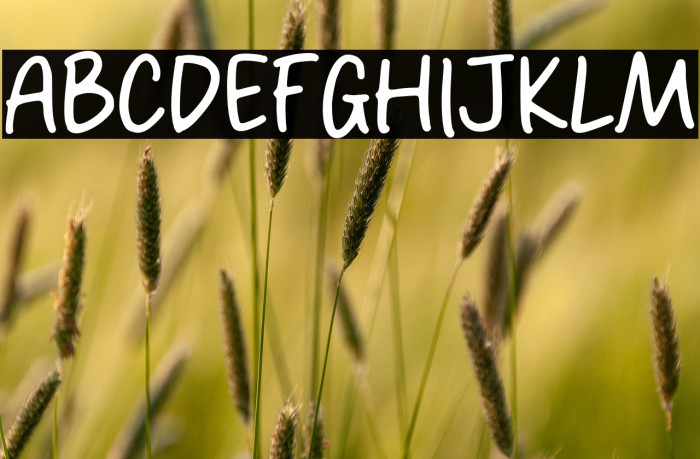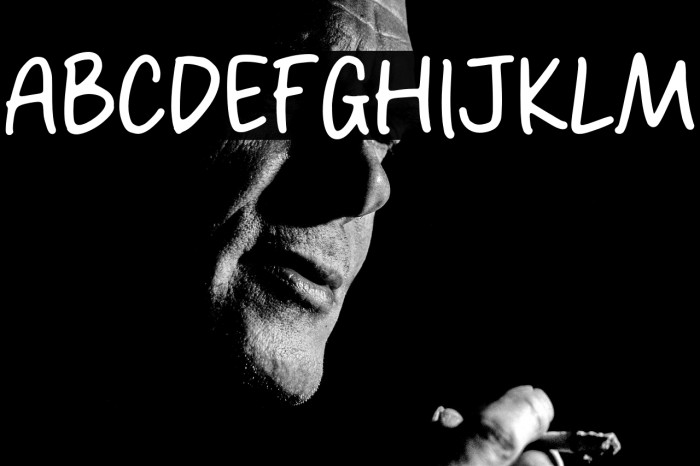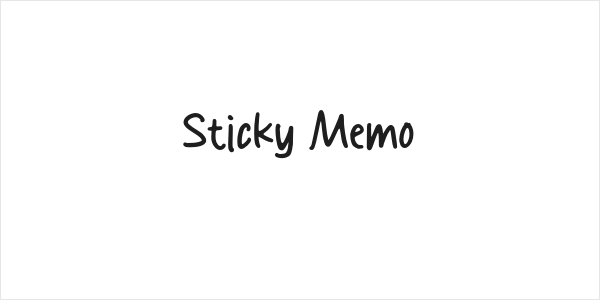
Sticky Memo Font
Sticky Memo Description
This font features a playful and casual handwritten style, characterized by its smooth, rounded strokes and slightly irregular letterforms that give it a personal touch. The uppercase and lowercase letters maintain a consistent flow, while the numerals and special characters complement the overall aesthetic. The font exudes a friendly and approachable vibe, making it suitable for informal and creative projects. Its legibility is enhanced by the moderate spacing between characters, ensuring clarity in various sizes.
| Overall Style | Casual |
| Use Case | Headlines, Informal text, Creative projects |
| Proposed Projects | Ideal for greeting cards, personal notes, children's books, and creative branding. |